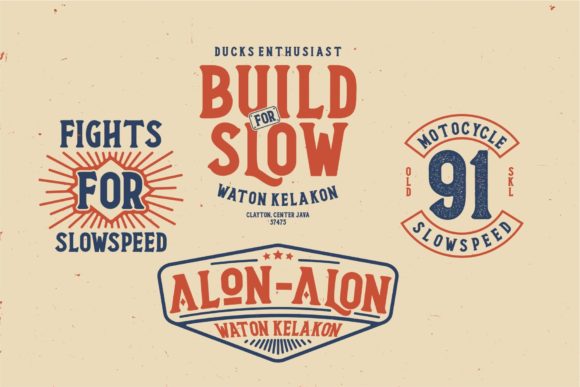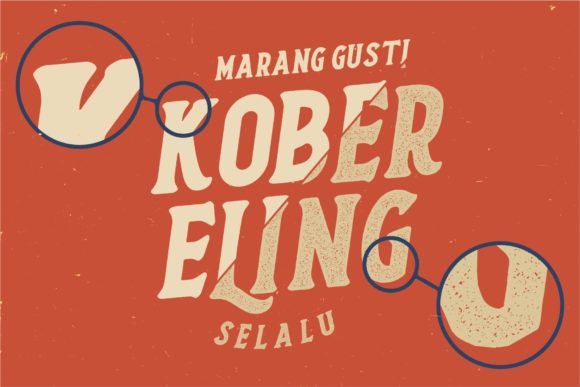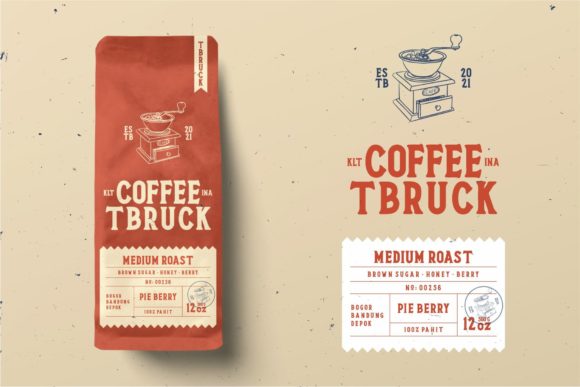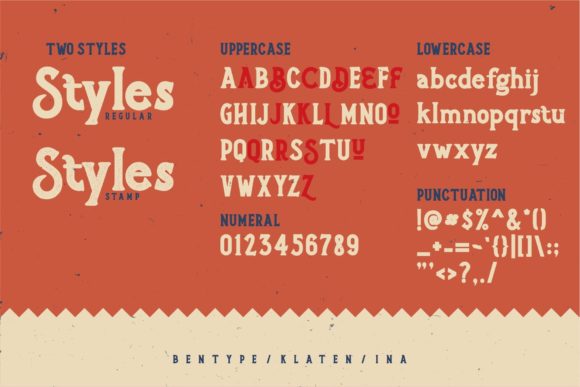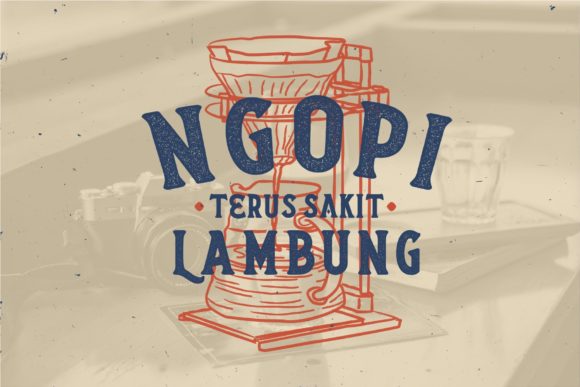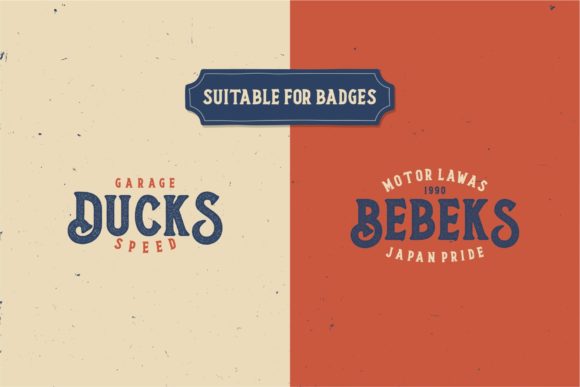
The Retro Charm of Berlings Font: A Designer’s Delight
I’ll never forget the time I was working on a vintage-inspired branding project for a client, and I just couldn’t find the right font to capture that nostalgic feel. I scoured the internet, tried out countless fonts, but nothing seemed quite right. That was until I stumbled upon Berlings Font. ✨ It was love at first sight! The distinctive style of Berlings instantly transported me back to a bygone era, and I knew I had found the perfect fit for my project.
An Honest Review of Berlings Font
- 💯 Retro charm: Berlings Font has a unique, vintage vibe that’s perfect for retro-style branding projects, advertisements, or even just adding a touch of nostalgia to your designs.
- ✅ Condensed and readable: The font is beautifully condensed, making it ideal for headlines, titles, or short paragraphs of text, while still being surprisingly readable.
- ✨ Versatile: Berlings Font can be used for a wide range of creative projects, from logos and branding to packaging, posters, and more.
While Berlings Font is an amazing addition to any design project, there are a few things to keep in mind: 🤔
- ⚠️ Limited use in body text: Due to its condensed nature, Berlings Font might not be the best choice for longer blocks of body text. It’s better suited for headlines, titles, or short paragraphs.
- ⚠️ Some glyph limitations: While Berlings Font has a wide range of glyphs and OpenType features, it might not have every special character or symbol you need. Be sure to check the font’s capabilities before committing to a project.
The Story Behind Berlings Font
Berlings Font was inspired by the classic typography of the early 20th century. Its creator, a talented type designer, aimed to capture the essence of vintage fonts while making them more versatile and practical for modern designers. The result is a font that’s both nostalgic and fresh, perfect for adding a touch of retro charm to your designs.
Q: What type of projects is Berlings Font best suited for?
A: Berlings Font is ideal for retro-style branding projects, vintage-inspired designs, and creative projects that require a touch of nostalgia.
Q: Does Berlings Font come with OpenType features?
A: Yes, Berlings Font includes a range of OpenType features, such as ligatures, stylistic alternates, and glyphs, to help you add an extra layer of creativity to your designs.